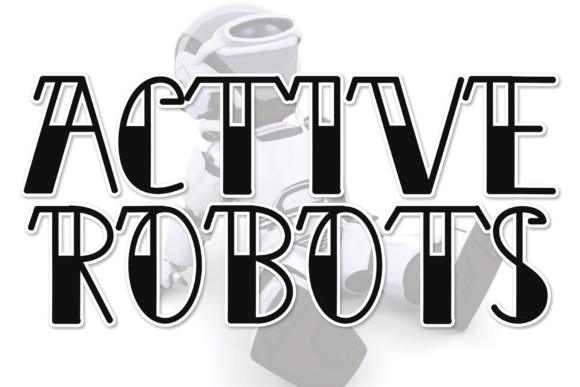
Introduction to Active Robots Font
This Active Robots font is perfect for wall displays, wedding invitations, social media post logos, advertisements, product packaging, product designs, labels, photography, watermarks, invitations, stationery and much more.
Key Features of Active Robots Font
Why Choose Active Robots Font?
Active Robots Font offers exceptional quality and versatility, making it a valuable addition to your design toolkit. Whether you’re creating for personal projects or commercial use, Active Robots Font delivers professional results.